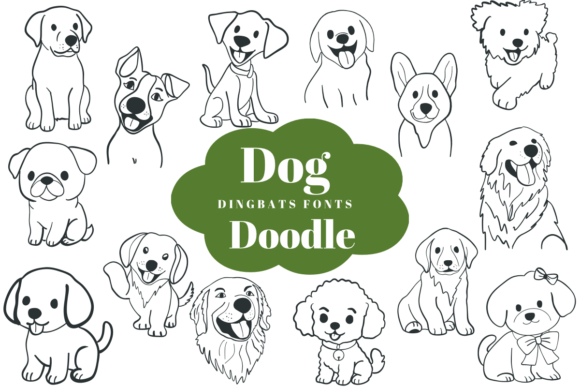
Unleash Your Creativity with the Dog Doodle Font
As a designer, there’s nothing quite like the rush of inspiration that comes from staring at a blank canvas. The cursor blinks, your mind starts racing, and suddenly you’re envisioning the perfect design. It’s moments like these that remind us why we love what we do. But sometimes, all it takes is the right tool to bring our ideas to life. Enter the Dog Doodle Font – a charming dingbats font that’s about to become your new best friend.
This lovely font is designed to add a touch of whimsy and personality to your creative projects. Whether you’re working on a children’s book, a graphic novel, or a marketing campaign, the Dog Doodle Font is sure to bring a smile to your face and a spark to your design. And as a designer, you know how valuable it is to have a font that can help you stand out from the crowd.
Dog Doodle Font Key Features
- Unique Hand-Drawn Style: The Dog Doodle Font features a playful, hand-drawn design that adds a touch of whimsy to any text.
- Extensive Character Set: Includes uppercase and lowercase letters, numerals, punctuation marks, and special characters for comprehensive use.
- Perfect for Children’s Content: The Dog Doodle Font is ideal for designing children’s books, educational materials, and other content that requires a friendly and approachable tone.
Review of “Dog Doodle Font”
I’ve had the chance to work with the “Dog Doodle Font” and I must say, it’s a unique addition to any project. ✨ The playful, handwritten style makes it perfect for children’s books, pet-related content, or even social media graphics. The font is highly customizable, with various options for color, size, and texture, which gives users a lot of creative freedom.
Here are some of the things I like about the font:
- ✨ Highly customizable, allowing users to tailor the font to their specific needs
- ✨ Great for creating a playful, whimsical atmosphere in projects
- ✨ Includes a range of punctuation and special characters, making it easy to use in various contexts
However, I do have a few concerns:
- ⚠️ The font may not be suitable for formal or professional projects, as its playful style may not be taken seriously
- ⚠️ Some users may find the font difficult to read, especially in smaller sizes or at a distance
Overall, I think the “Dog Doodle Font” is a great option for designers looking to add a touch of personality to their projects. While it may have some limitations, its unique style and high level of customization make it a valuable addition to any font collection.
Dog Doodle Font is perfect for:
- Children’s books and educational materials.
- Party invitations and decorations.
- Brand logos and marketing materials.
Alternatives to Dog Doodle Font